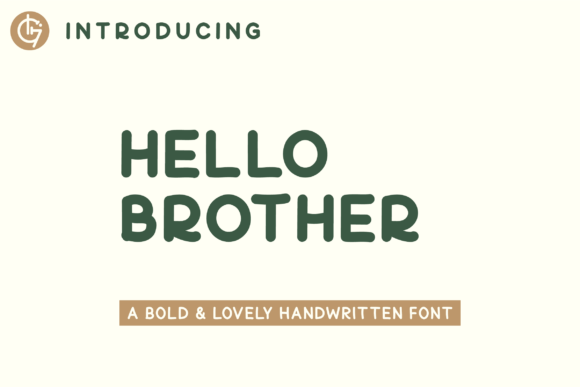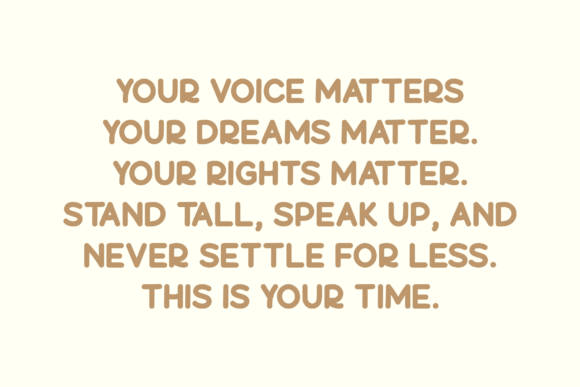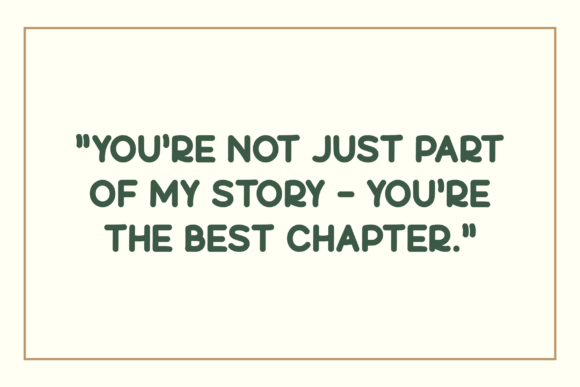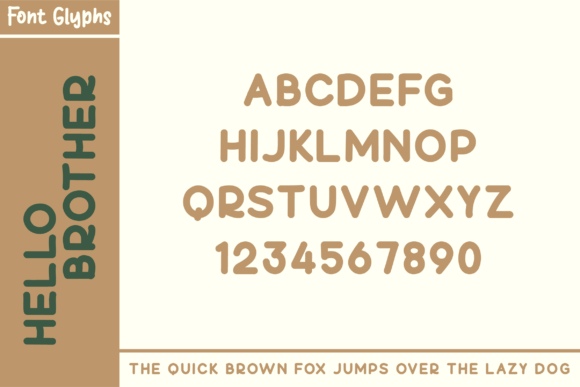
The Perfect Blend of Bold and Heartfelt: Hello Brother Font
Have you ever been brainstorming ideas for a new design project, only to be stuck on the perfect font? The moment of clarity finally hits when you stumble upon the perfect match – and that’s exactly what happens when you discover the Hello Brother Font. This beautiful, handwritten font combines a strong, bold presence with a charming, personal touch, making it the perfect addition to any design.
Whether you’re a seasoned designer or just starting out, the Hello Brother Font is an invaluable tool in your creative arsenal. Its unique style adds warmth and authenticity to any design, making it ideal for branding, packaging, social media, and print projects. With its professional yet approachable aesthetic, you’ll be able to achieve a cohesive look that resonates with your audience.
Hello Brother Font Key Features
- Font Family: Hello Brother Font is a sans-serif typeface designed to be clean and modern.
- Unique Characteristics: Hello Brother Font features a unique blend of geometric and rounded shapes, giving it a friendly and approachable feel.
Hello Brother Font Review
When I first laid eyes on the Hello Brother font, I was immediately drawn to its quirky and laid-back vibe ✨. The font’s unique blend of modern and vintage elements makes it a great choice for anything from music festival posters to streetwear branding. The font’s flexibility is one of its strongest suits, making it easy to adapt to a wide range of design contexts.
One of the standout features of the Hello Brother font is its extensive character set, which includes a wide range of accents and ligatures ✨. This makes it an excellent choice for designers who need to typeset complex text in multiple languages. Additionally, the font’s high level of customization allows designers to easily tweak its appearance to suit their specific needs.
- ⚠️ The font may not be suitable for formal or corporate design projects, as its casual vibe may come across as unprofessional.
- ⚠️ The font’s bold weights may not be as polished as some other fonts on the market.
Overall, the Hello Brother font is a solid choice for designers who need a versatile and unique font for their next project. While it may have some limitations, its strengths far outweigh its weaknesses, making it a great addition to any designer’s toolkit.
The Hello Brother Font is suitable for:
- Brand identities and logos
- Designing social media graphics
- Creating presentations and documents
Alternatives to Hello Brother Font for Designers